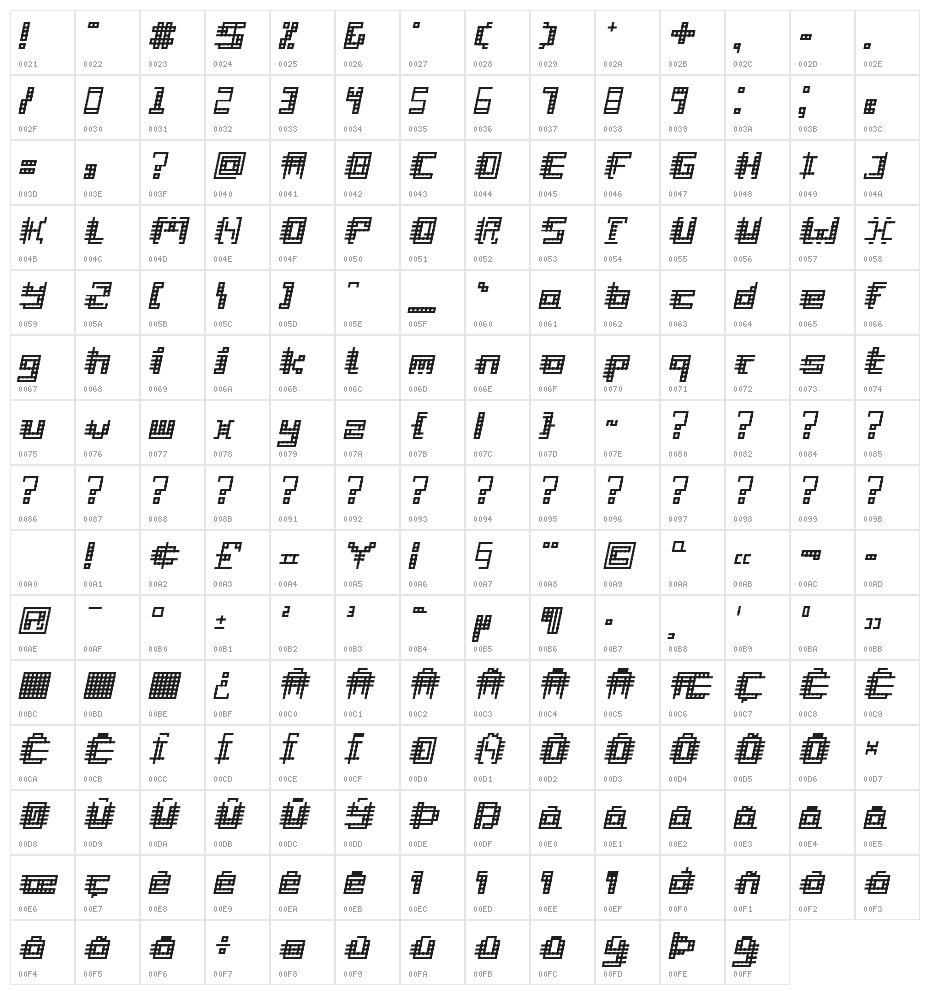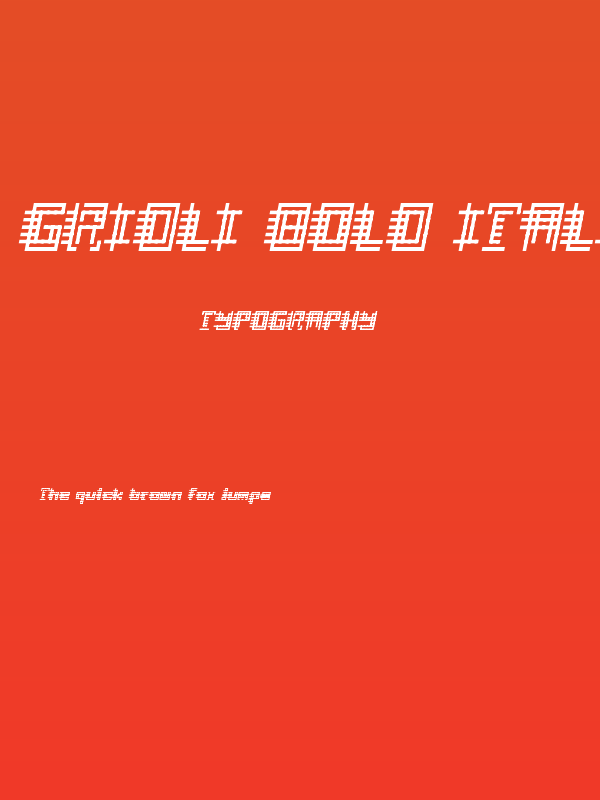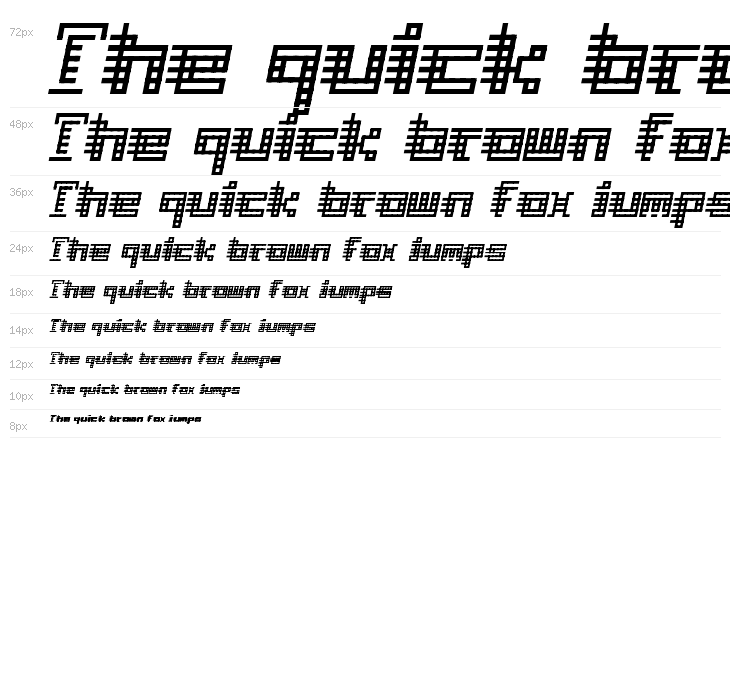
Gridli Bold Italic Font
Gridli Bold Italic Description
This font features a unique, grid-like structure with a bold and italicized style. Each character is composed of a series of horizontal and vertical lines, creating a pixelated, digital appearance. The design is reminiscent of retro computer graphics, with a futuristic twist. The uppercase and lowercase letters maintain a consistent height, while the numerals and special characters follow the same grid pattern. The overall look is geometric and structured, making it stand out in any design project.
| Overall Style | Futuristic, Digital, Retro |
| Proposed Projects | Ideal for tech-themed designs, digital art, video game graphics, and futuristic branding projects. |